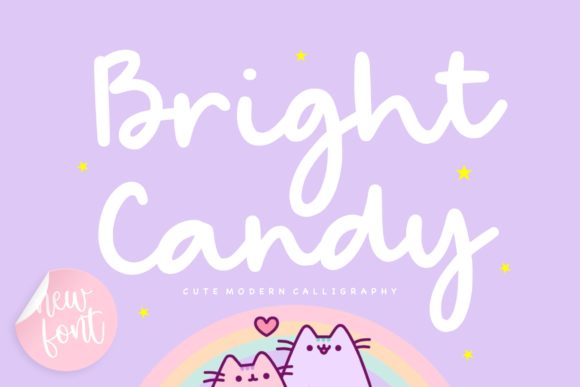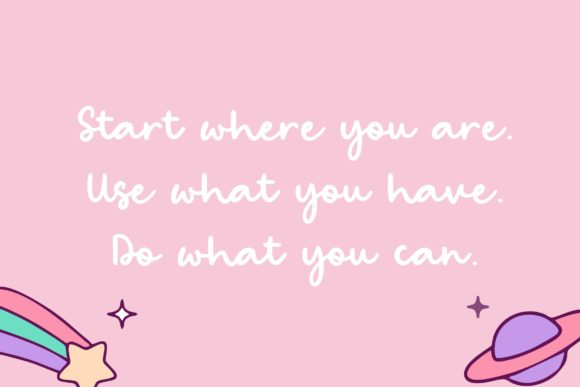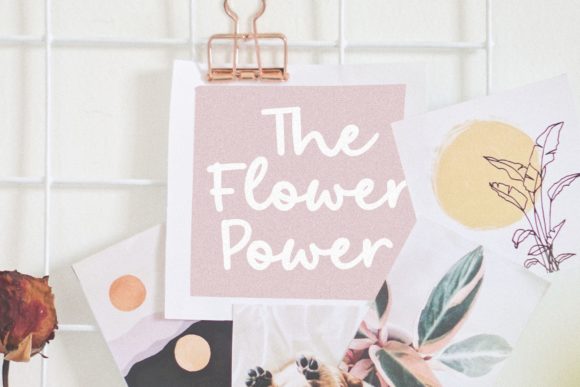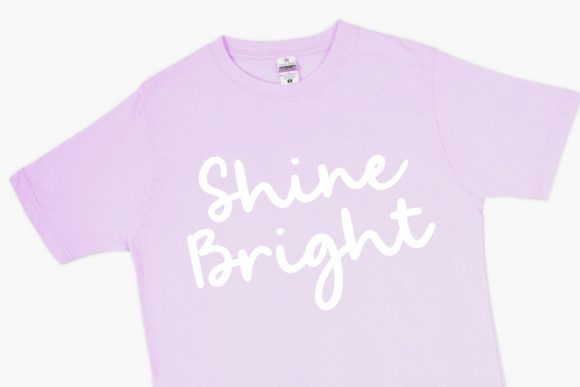
Bright Candy Font: A Cute Handwritten Font for Cricut & DIY Projects
About the Bright Candy Font
The wait is over! The incredible Bright Candy Font is now available for your design toolkit. Bright Candy is an exquisite handwritten font, masterfully designed to become a true favorite. It maintains its classy calligraphic influences while feeling contemporary and fresh. Fall in love with it and bring your projects to the highest levels!
Bright Candy’s playful yet elegant style is ideal for headlines, short-form text in branding materials, and eye-catching packaging designs. Its calligraphic nature makes it perfect for projects needing a touch of handcrafted charm, such as invitations or logos for boutiques and cafes. However, its delicate strokes and varying letterforms make it unsuitable for body text or extended reading.
The font’s inherent energy is best balanced with a clean sans-serif like Open Sans for a modern feel or a classic serif like Garamond for a more timeless look. Pairing it with a geometric sans-serif adds a contemporary contrast, while a simple script font could enhance its handwritten quality subtly.
Bright Candy projects a friendly and approachable personality, ideal for brands that want to communicate approachability and sophistication simultaneously. Avoid using it in contexts requiring strong readability or neutrality.